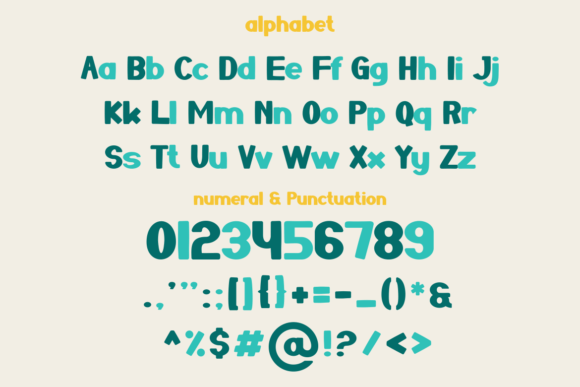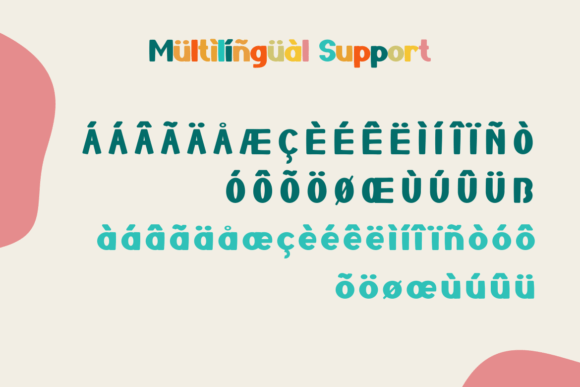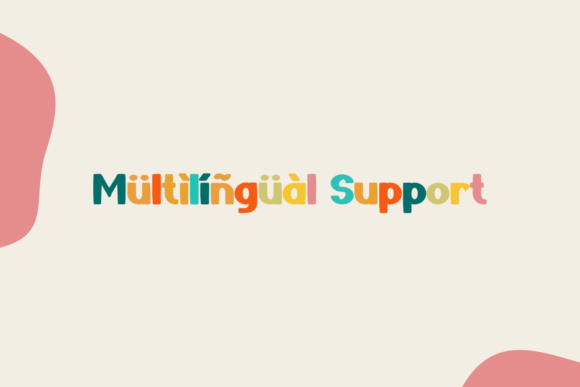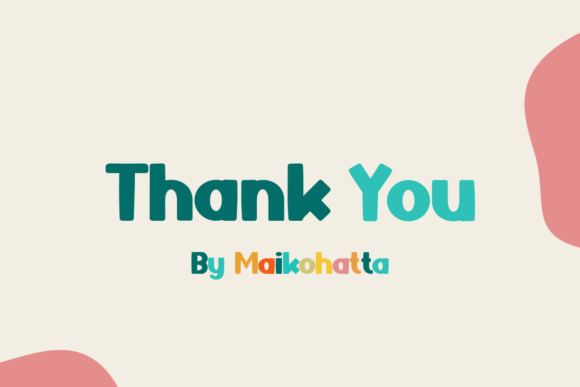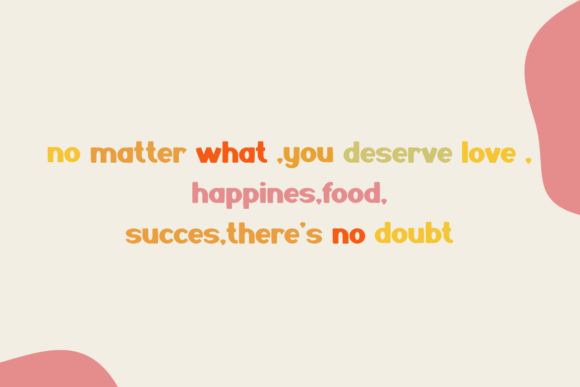
Meet the Font that Brings Joy to Your Designs
Have you ever stared at a blank page, pencil in hand, and suddenly been hit with a burst of creative energy? The ideas start flowing, and before you know it, you’re sketching out a colorful design that brings a smile to your face. That’s exactly what inspired us to create the Kiddie Cuttie Font – a playful display font designed to add a touch of whimsy to your projects.
With its adorable characters and charming style, the Kiddie Cuttie Font is perfect for designers who want to add a little extra magic to their designs. Whether you’re working on greeting cards, invitations, or even book covers, this font is sure to bring a smile to your clients’ faces and make their projects stand out in a crowded market.
Kiddie Cuttie Font Key Features
- Unique Characteristics: A playful, child-friendly font with rounded edges and soft curves, perfect for creating a whimsical and approachable atmosphere in designs
- Character Count: Over 250 characters, including uppercase and lowercase letters, numbers, and punctuation
- Style Variations: Available in regular and bold weights, with optional swashes and flourishes for added visual interest
Kiddie Cuttie Font Review
I recently had the chance to work with the Kiddie Cuttie Font, and I must say it’s a font that’s full of charm and character ✨. The font is designed to resemble hand-drawn illustrations, making it perfect for projects that need a whimsical touch. The characters are playful, yet still legible, which makes it a great choice for children’s books, nursery decorations, and other projects that cater to young audiences.
One of the things I love about this font is its versatility ✨. It comes in a range of styles, from bold and colorful to delicate and pastel. This makes it easy to find the perfect look for your project, whether you’re going for a bright and playful feel or a softer, more delicate look. Additionally, the font is highly customizable, allowing you to adjust the size, color, and spacing to suit your needs.
However, there are a few limitations to keep in mind ⚠️. The font may not be suitable for projects that require a more formal or professional tone. Additionally, the font’s hand-drawn style can make it difficult to read at smaller sizes, so be sure to use it in conjunction with clear and concise content.
Overall, I think the Kiddie Cuttie Font is a great choice for projects that need a playful and whimsical touch ✨. With its versatility and customization options, it’s a font that’s sure to bring a smile to your audience’s faces.
- Whimsical hand-drawn style
- Versatile range of styles and sizes
- Perfect for children’s projects and nursery decorations
- May not be suitable for formal or professional projects
Kiddie Cuttie Font Practical Application Guide
The Kiddie Cuttie Font is ideal for creating playful and whimsical designs, such as:
- Children’s party invitations
- Infant and toddler product packaging
- Wedding and event decorations
To maximize the use of the Kiddie Cuttie Font, consider the following tips:
- Choose a phrase or quote for the sign, such as “Sweet Dreams” or “Little Peanut”.
- Use a combination of Kiddie Cuttie Font and a solid color background to create a playful contrast.
- Add some decorative elements, like illustrations or patterns, to enhance the whimsical feel.
- Use a matching font for the background text to create a cohesive look.
- Experiment with different color schemes and textures to add depth and visual interest.
- Choose a playful phrase or message, such as “It’s Time to Party” or “You’re Invited to the Fun”.
- Combine Kiddie Cuttie Font with bold, bright colors and fun illustrations to create a visually appealing design.
- Don’t forget to include all the essential party details, like date, time, and location.
Playful Projects with Kiddie Cuttie Font
Project 1: Whimsical Nursery Sign
Create a unique and adorable nursery sign using Kiddie Cuttie Font. This project is perfect for expectant parents or a thoughtful gift for a new baby.
How to use Kiddie Cuttie Font:
Project 2: Kiddie Cuttie Party Invitations
Design adorable party invitations using Kiddie Cuttie Font to set the tone for a fun and playful celebration.
How to use Kiddie Cuttie Font: